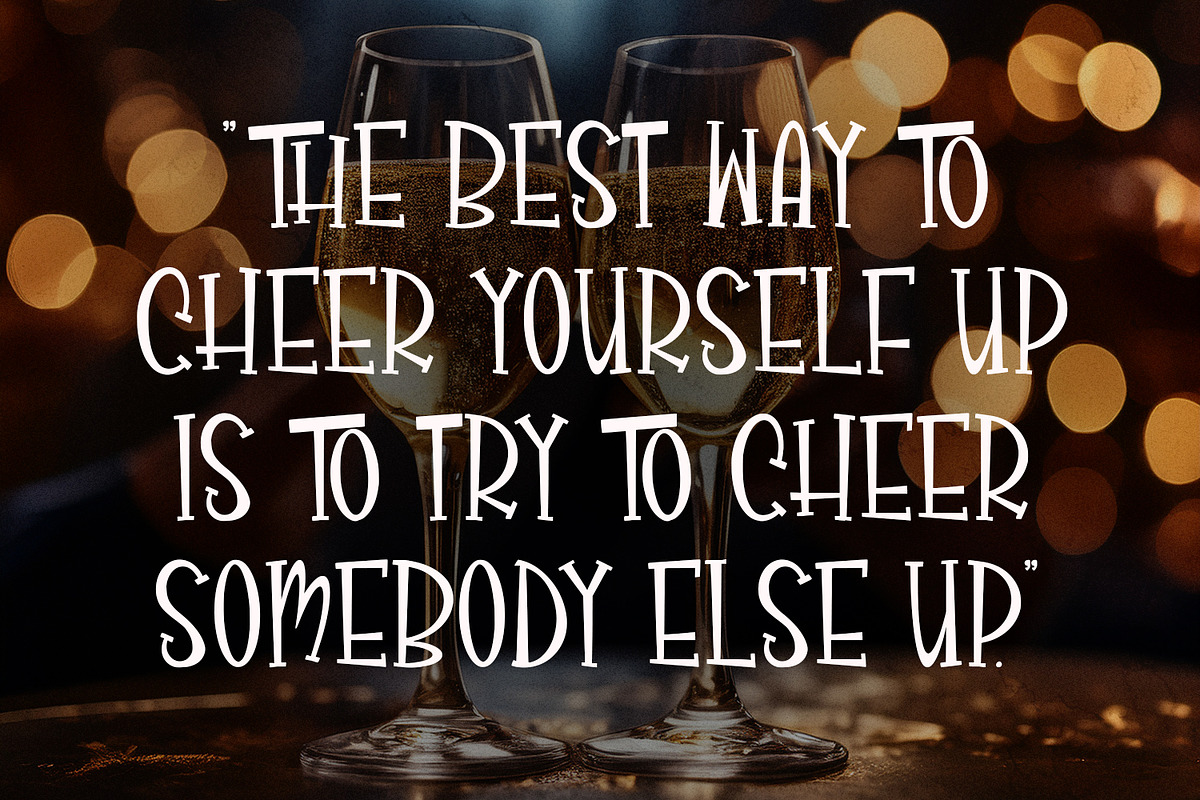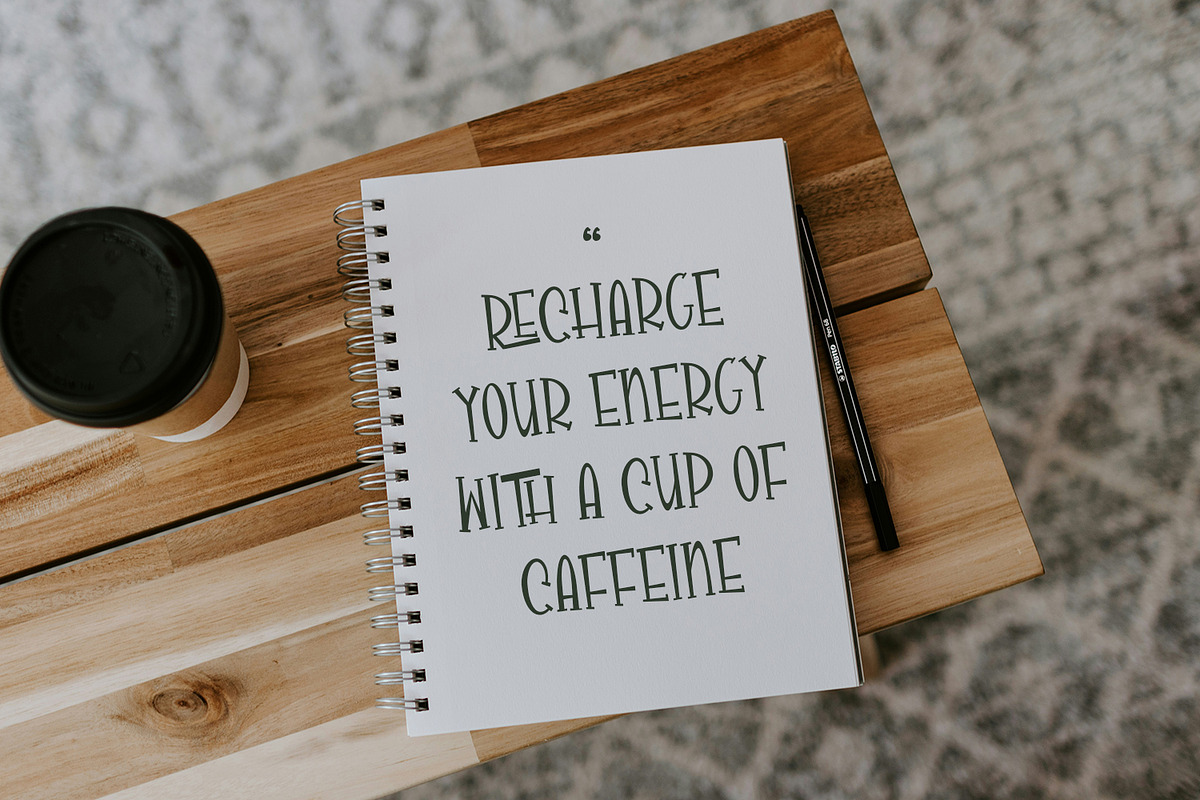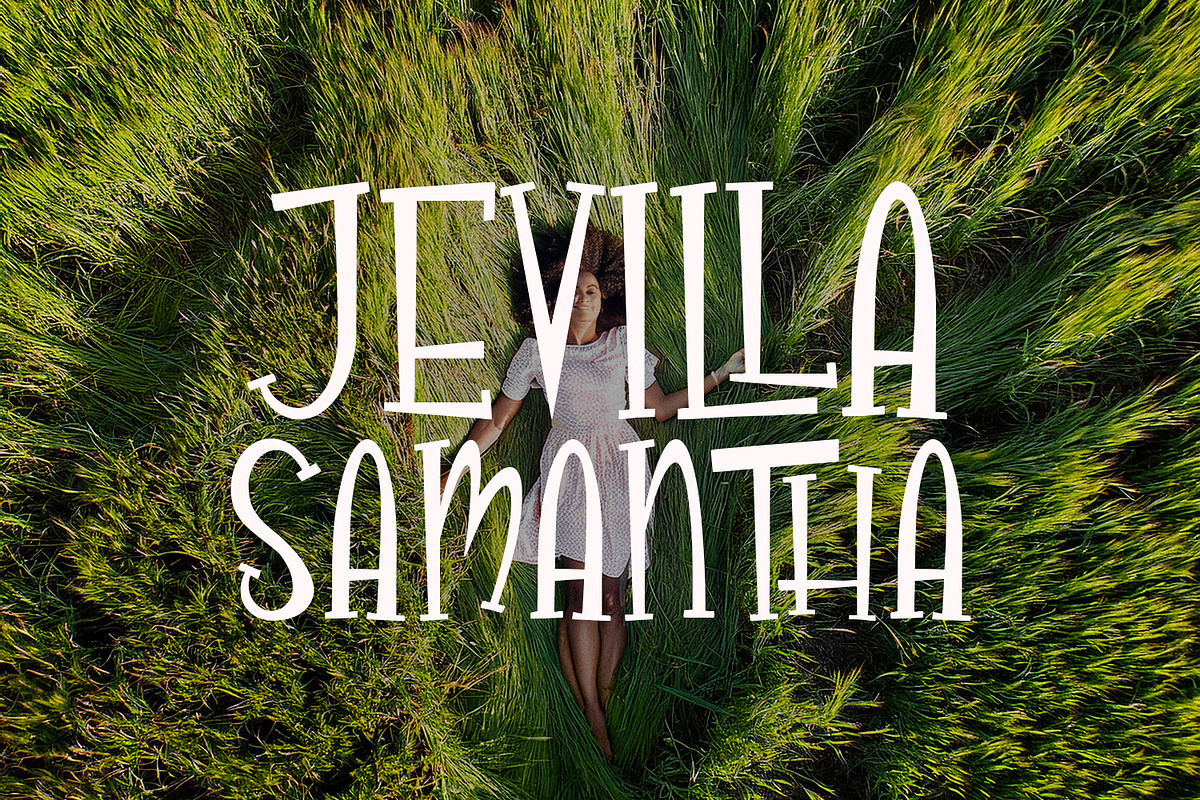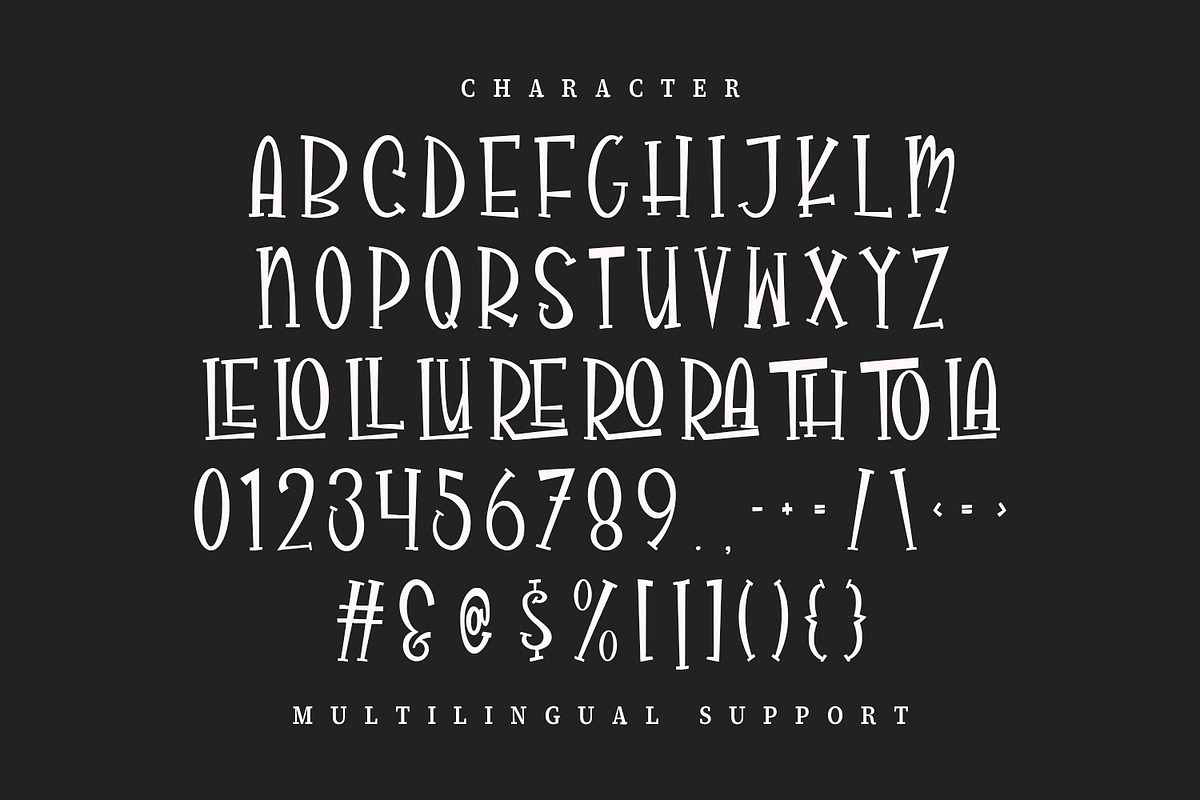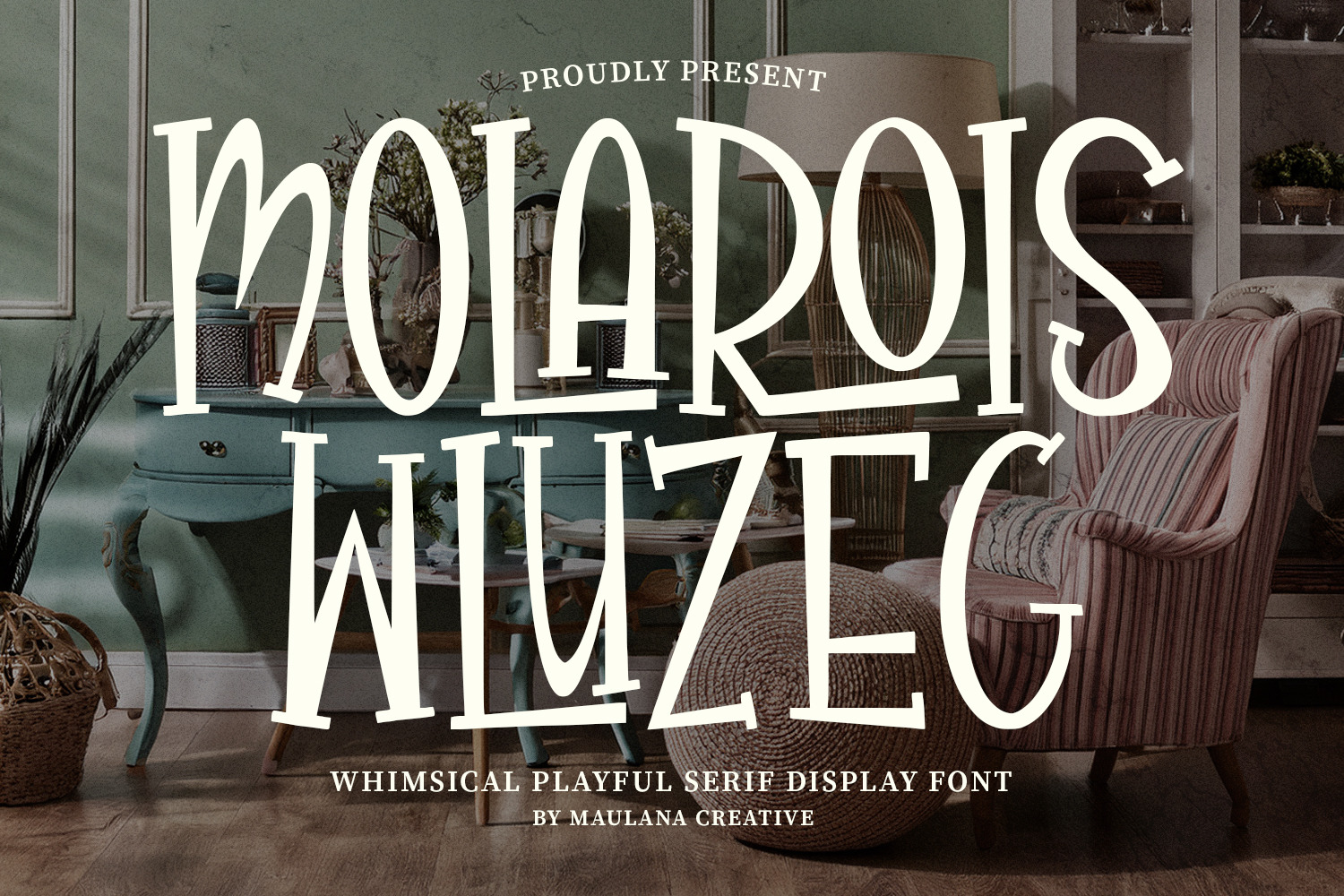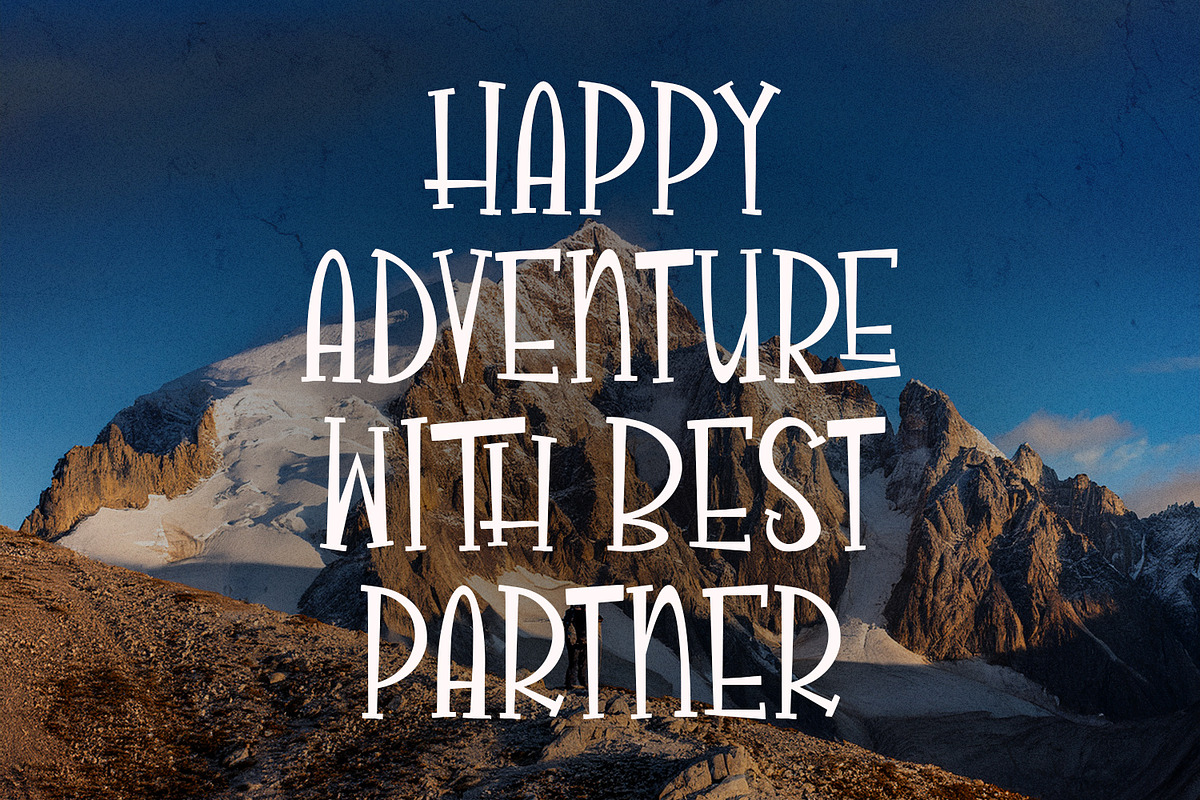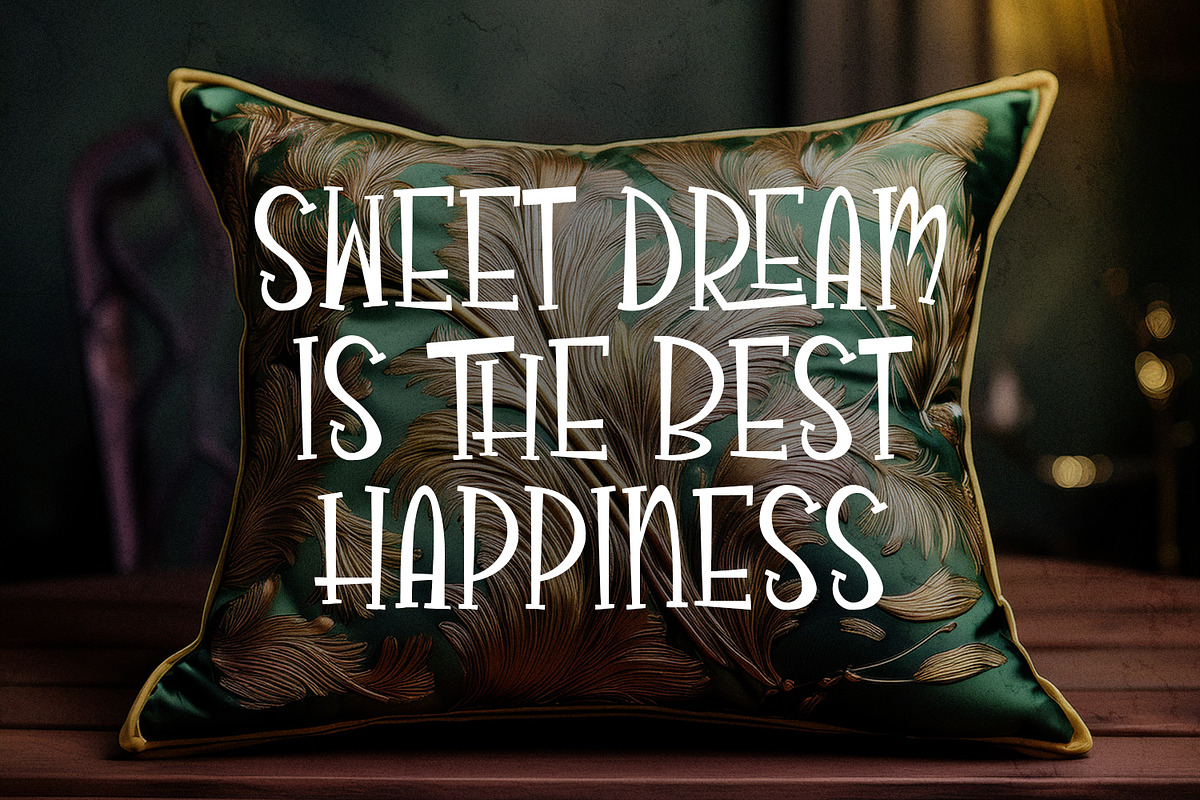
Molarois Wluzeg Playful Serif Font
Molarois Wluzeg is a charmingly eccentric serif display font that captures a sense of wonder and creative freedom. Characterized by its irregular heights, unique ligatures, and hand-drawn feel, this typeface is designed to add a touch of "organized chaos" to your designs. Whether you are working on children's book covers, quirky home decor branding, or inspirational social media quotes, Molarois Wluzeg provides an authentic, artisanal aesthetic that stands out. It includes multilingual support and special character alternates to give your typography a truly bespoke look.
- Full character set
- Numbers, Punctuation, and Symbols
- Ligatures for a natural handwriting flow